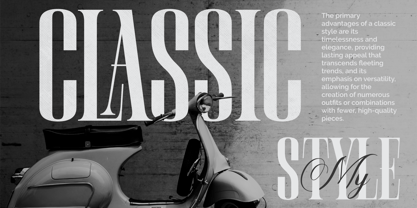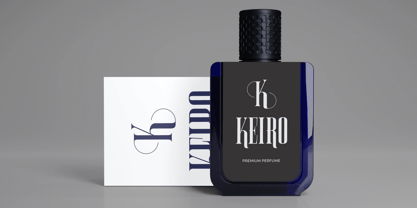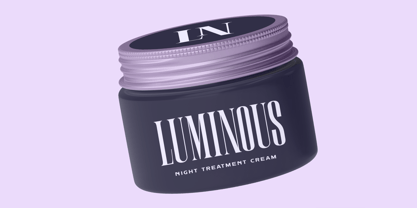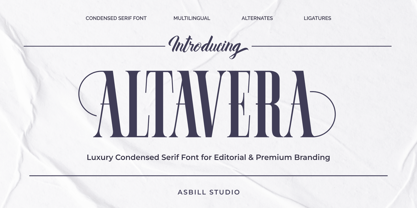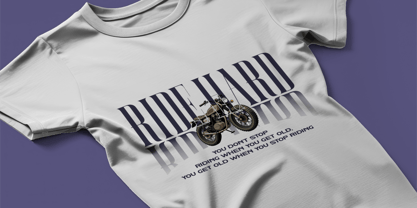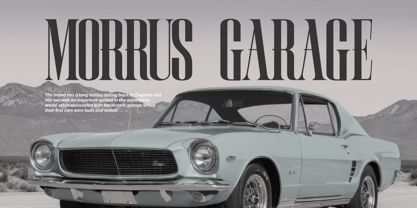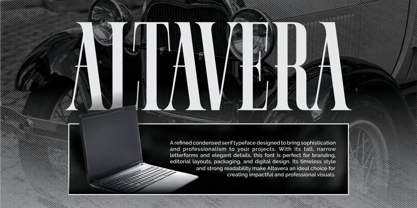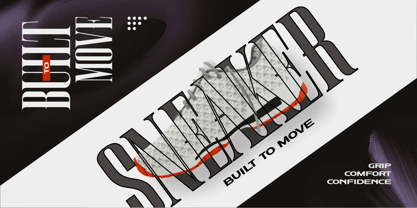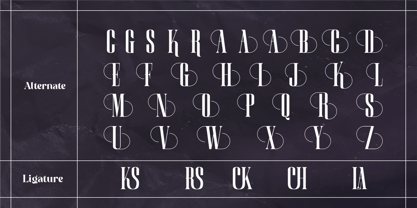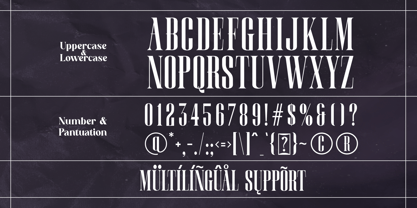
Altavera
by Asbill Studio
The Altavera Font Family was designed by Ricky Ali and published by Asbill Studio. Altavera contains 2 styles and family package options. More about this family
Create timeless, elegant, and high-end branding with a serif that feels both editorial and powerful. Altavera is a refined condensed serif typeface crafted for designers who want sophistication, clarity, and authority in one font.
It's tall letterforms, elegant proportions, and editorial rhythm make it perfect for fashion branding, logo, premium packaging, magazine layouts, and personal brand identities. Designed with elegance, confidence, and versatility in mind, it features a rich collection of stylish alternate characters that allow you to create truly distinctive logos and brand identities.
Whether you're designing a luxury logo, premium packaging, editorial headlines, or sophisticated branding materials, Altavera gives you the creative freedom to mix and match alternate glyphs for a unique, custom-made appearance. Every alternate has been carefully designed to complement the core character set, ensuring seamless harmony and a refined aesthetic.